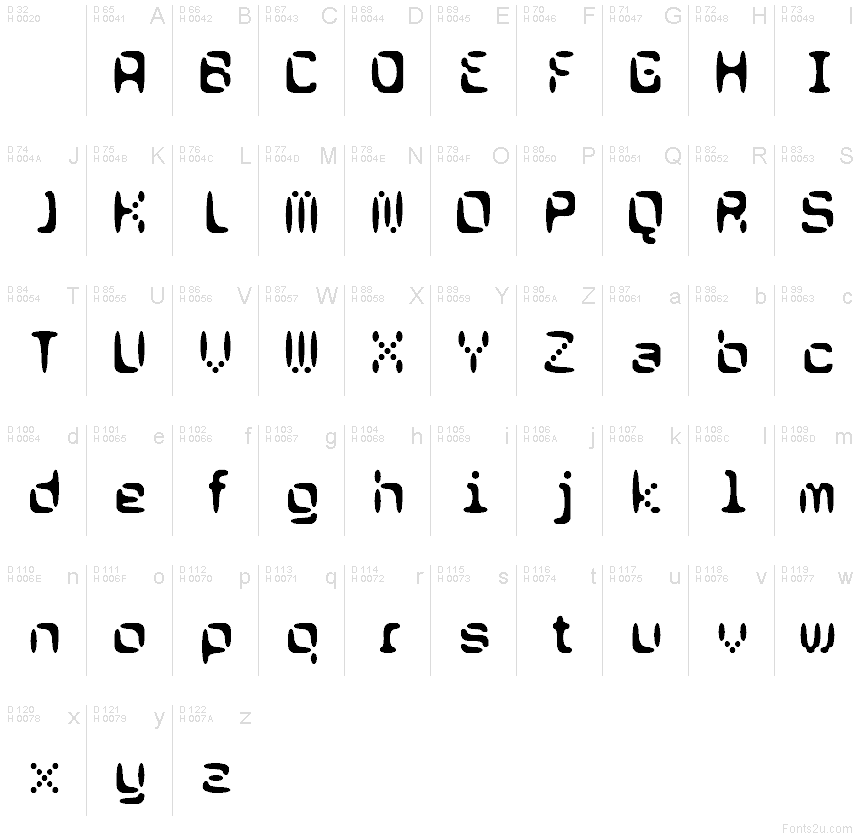
CSCalebMonoDrawn-Regular Demo
CS Caleb Mono Drawn font by Craft Supply Co. is a free display mono typeface in which all letters are greatly recognizable and allow for effortless legibility. The style is modest with a few playing around decorative features to avoid it being boring and flat. A perfect font suggestion when formal yet simple structure is required.
Being exceptionally versatile, the typeface can be used across materials such as books, magazines, newspapers, posters titles and much more! Digital use is also an option with web designs such as blogs and homepages heading areas to graphic categories namely apps, themes, social media channels etc.